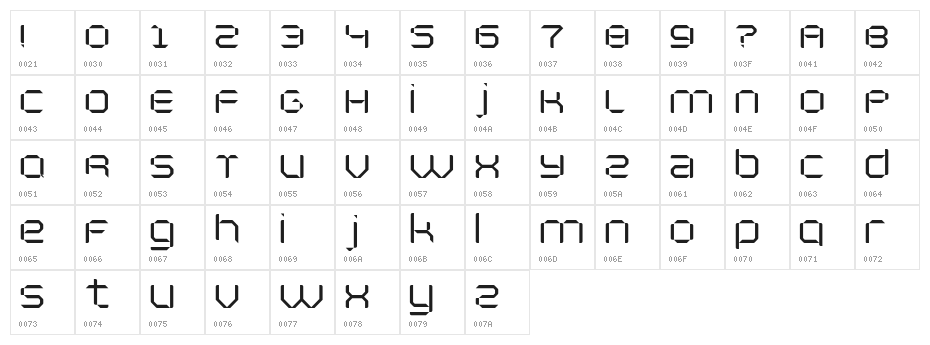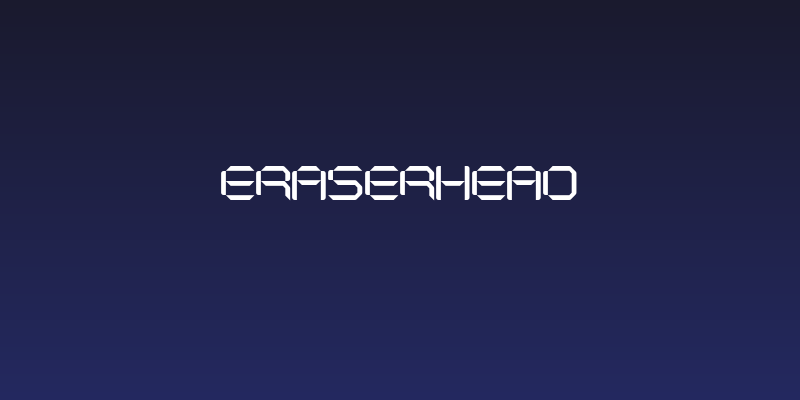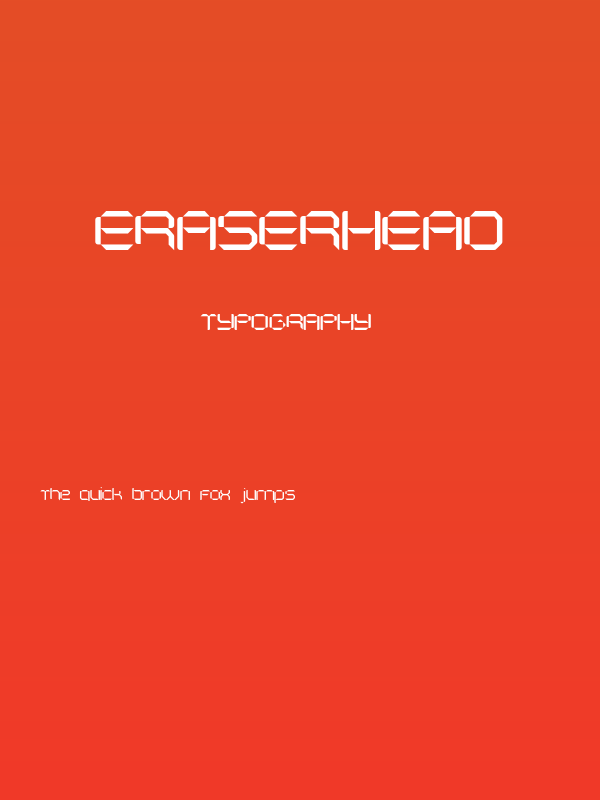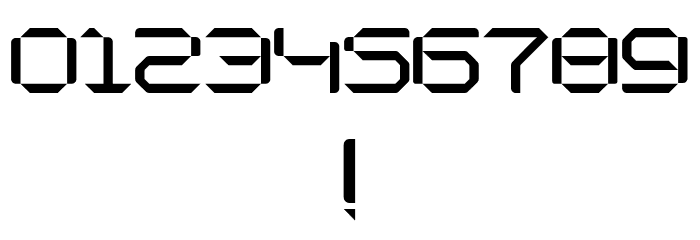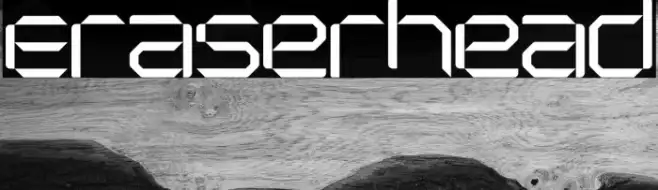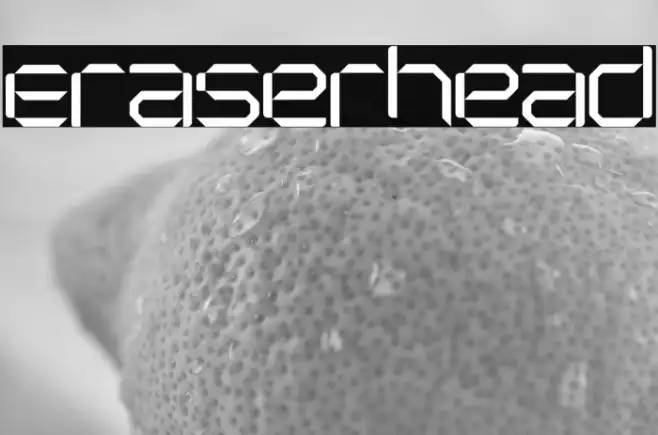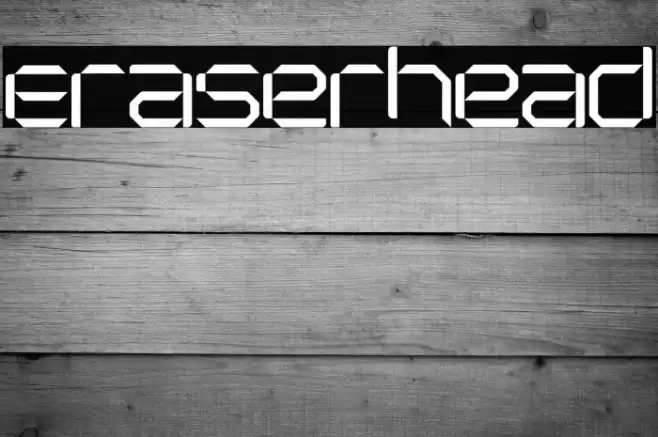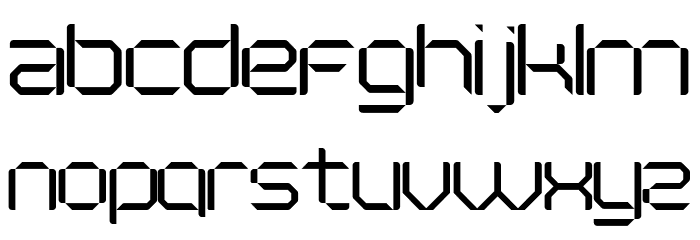
Eraserhead Font
Eraserhead Description
This font features a futuristic and geometric design, characterized by its angular and segmented letterforms. Each character is composed of distinct, sharp edges and straight lines, creating a digital and modern aesthetic. The uppercase and lowercase letters maintain a consistent style, with a uniform height and width that enhances readability. Numbers and special characters follow the same design principles, ensuring a cohesive look across all elements. The font's unique style makes it ideal for projects that require a contemporary and tech-inspired appearance.
| Proposed Projects | Ideal for tech branding, digital interfaces, video game titles, and modern posters. |